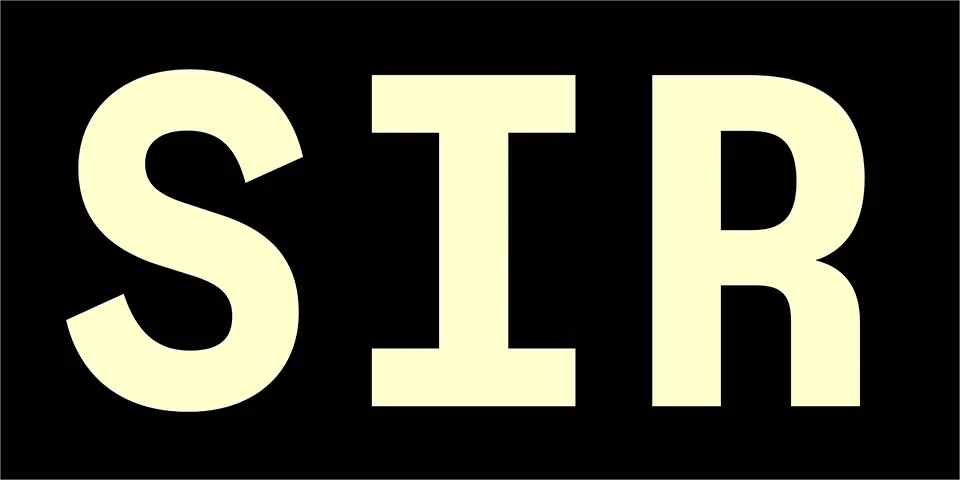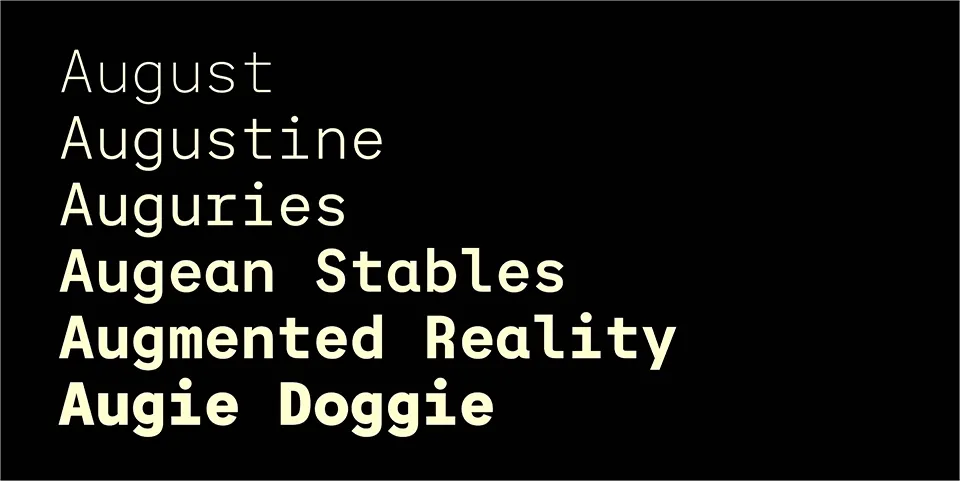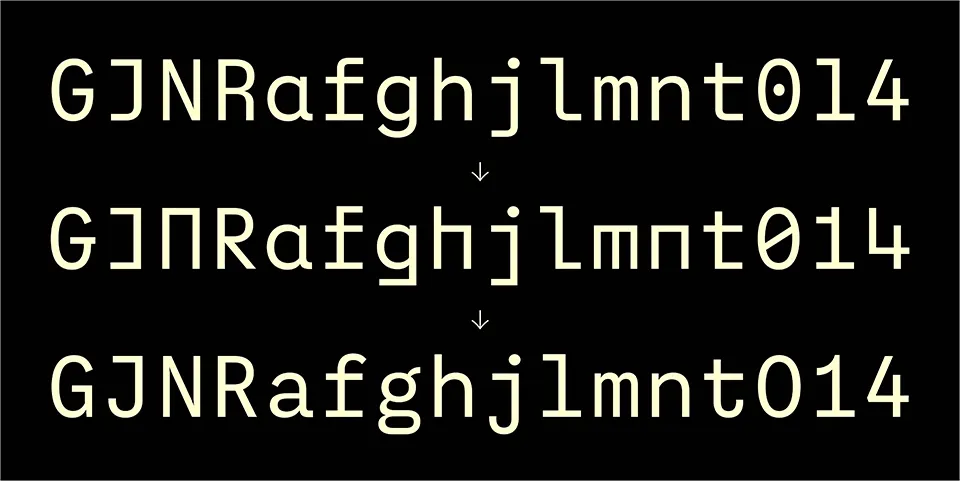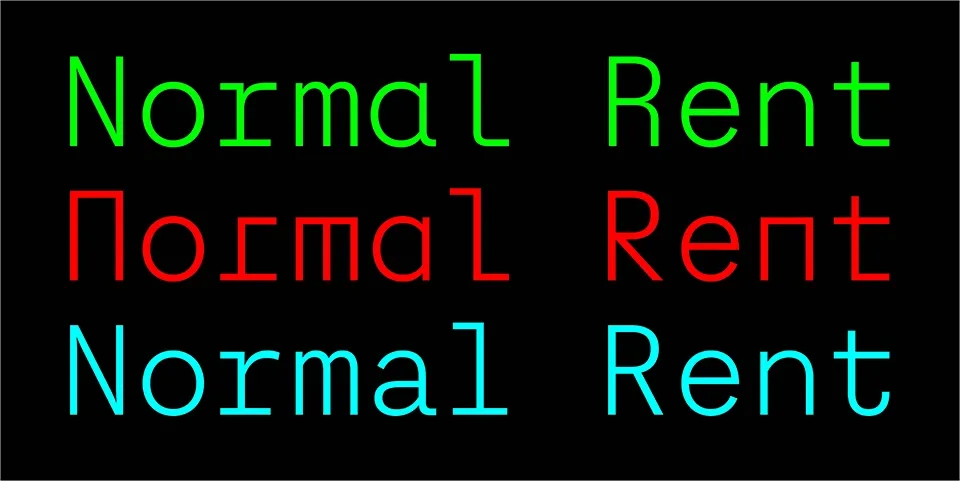
Auger Mono Font Family
The Auger Mono Font Family is a versatile monospace typeface inspired by the Myriad font, widely used by technology companies and governments since the 1990s. It features six weights, from X-Light to Black, and offers a range of stylistic alternates, allowing for both practical and geometric expressions. Drawing influences from old Leroy lettering templates, Fortunato Depero’s Bolted Book, and classic grotesk jobbing faces, Auger Mono combines open proportions with a workmanlike construction, ensuring balance and readability even in its most distinctive forms.